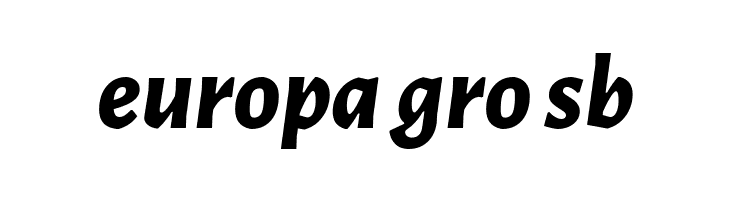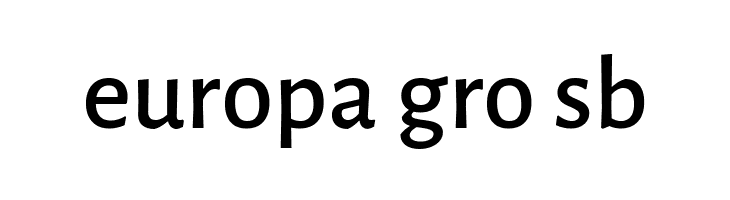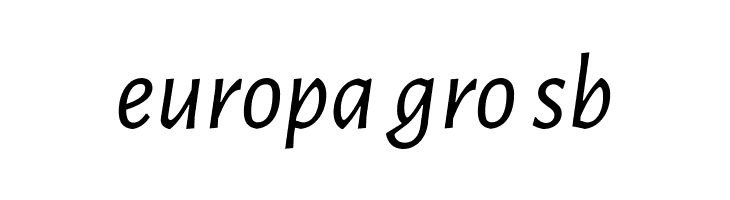
A bold, modern sans-serif font with strong geometric shapes and thick strokes.
A bold, italicized sans-serif font with a modern and authoritative style.
A bold, modern sans-serif font with clean lines and a strong presence.
A bold, italicized sans-serif font with a modern and elegant style.
A bold, modern sans-serif font with excellent readability and strong presence.
A modern sans-serif font with an elegant italic slant and clean lines.
A modern, light sans-serif font with low contrast and a clean, professional appearance.
A light, italic, sans-serif font with a modern and elegant style.
A modern sans-serif font with medium weight and rounded characters.